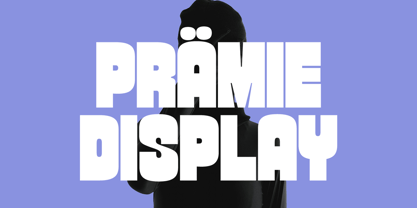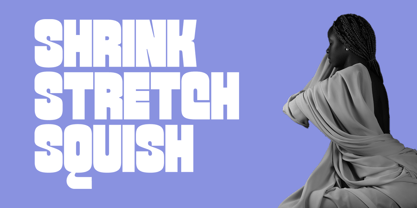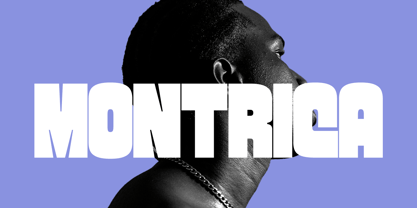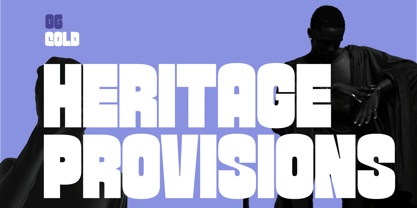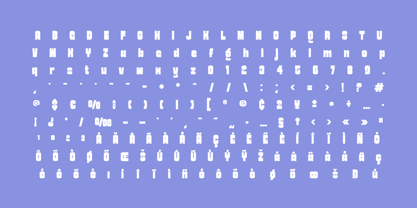
Montricano Display
by FoxType
The Montricano Display Font Family was designed by Evin Tony and published by FoxType. Montricano Display contains 1 styles. More about this family
Montrica – Bold Modern Display Font Montrica is a bold and powerful display typeface designed to make a statement. With its strong geometric forms, condensed proportions, and smooth curves, this font is perfect for creating eye-catching headlines, posters, branding, packaging, social media graphics, and more. Whether you’re working on fashion editorials, album covers, or modern advertising campaigns, Montrica brings a confident and stylish touch to your designs. Its versatility allows you to shrink, stretch, or squish the letters to fit your creative vision while still maintaining a striking presence. Features: Uppercase & lowercase letters Numbers & punctuation Multilingual support (including accented characters) Special symbols & currency signs Perfect for posters, branding, magazines, fashion projects, and digital media. Bring bold energy and modern attitude to your designs with Montrica Display – a font that refuses to go unnoticed.
Designers: Evin Tony
Foundry: FoxType